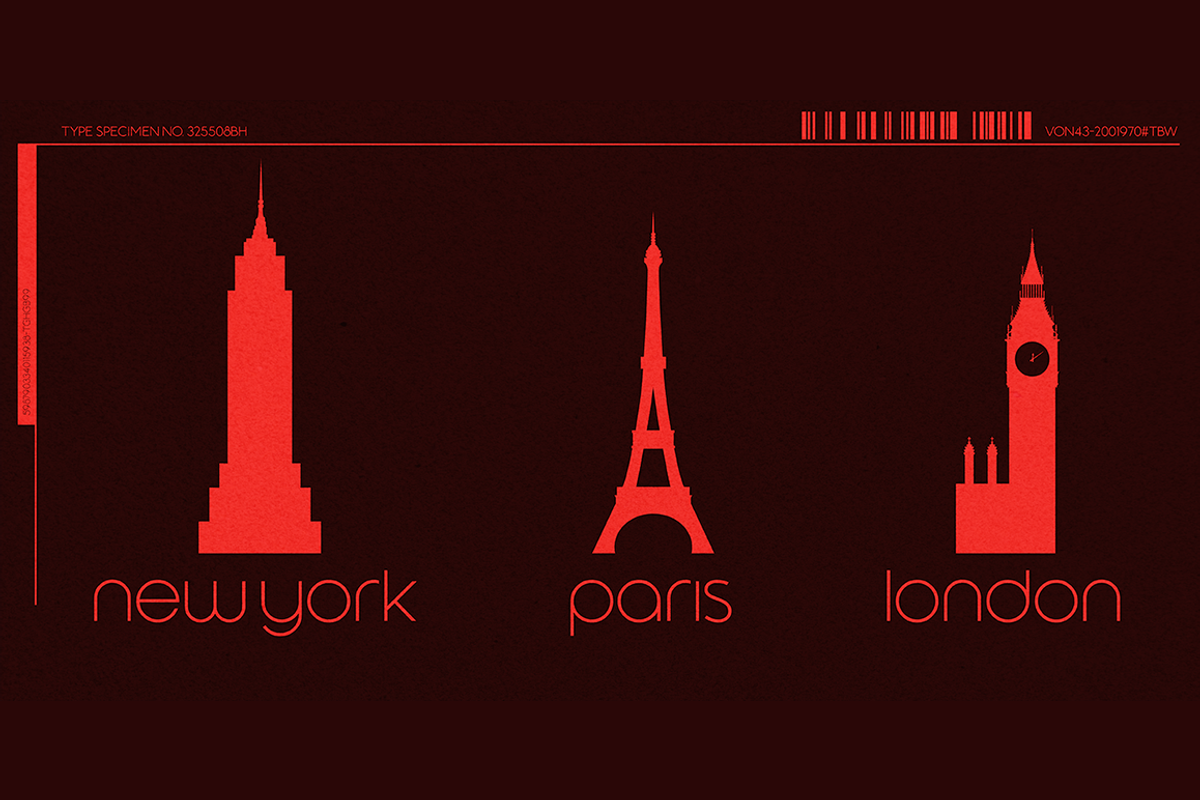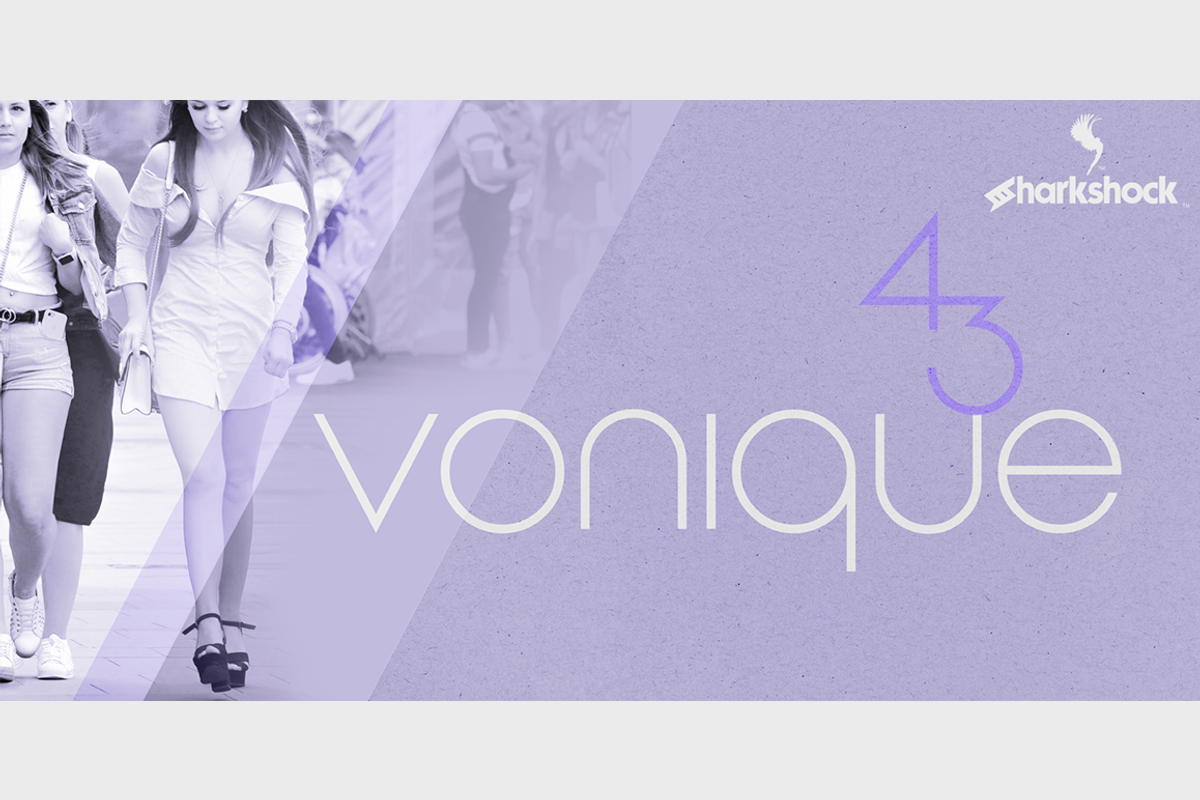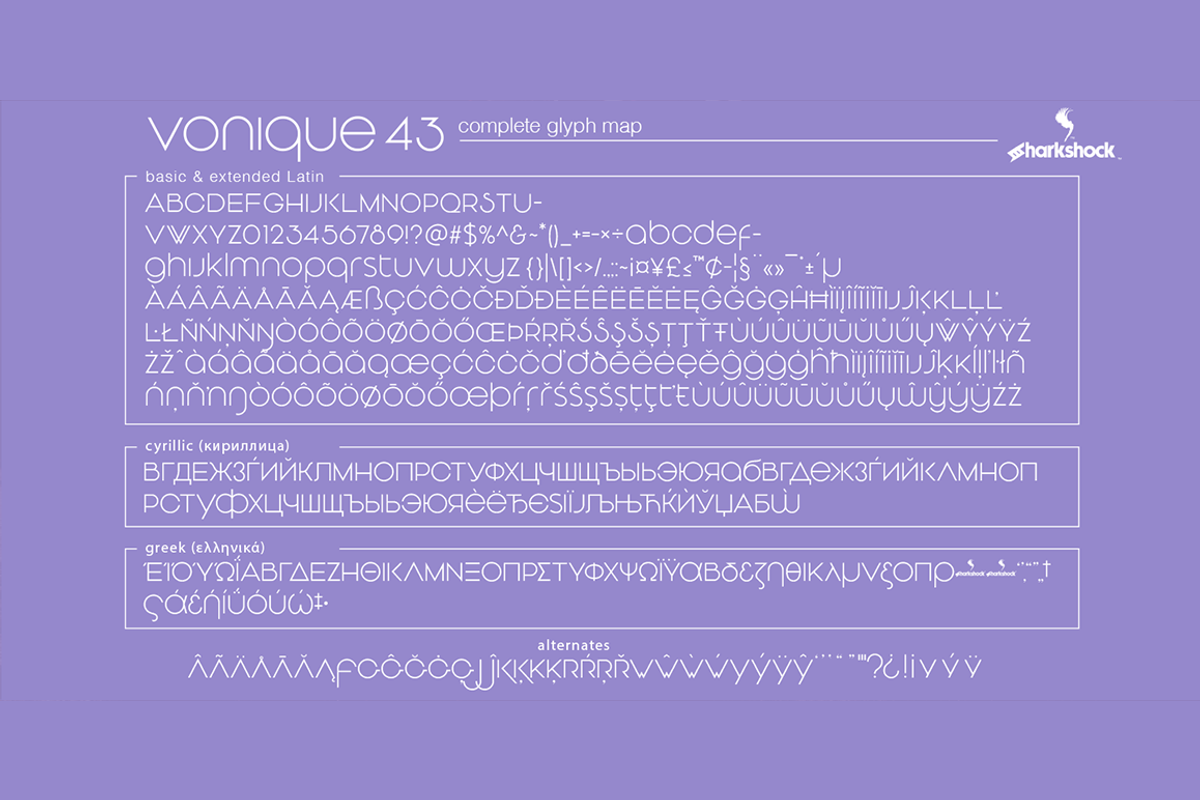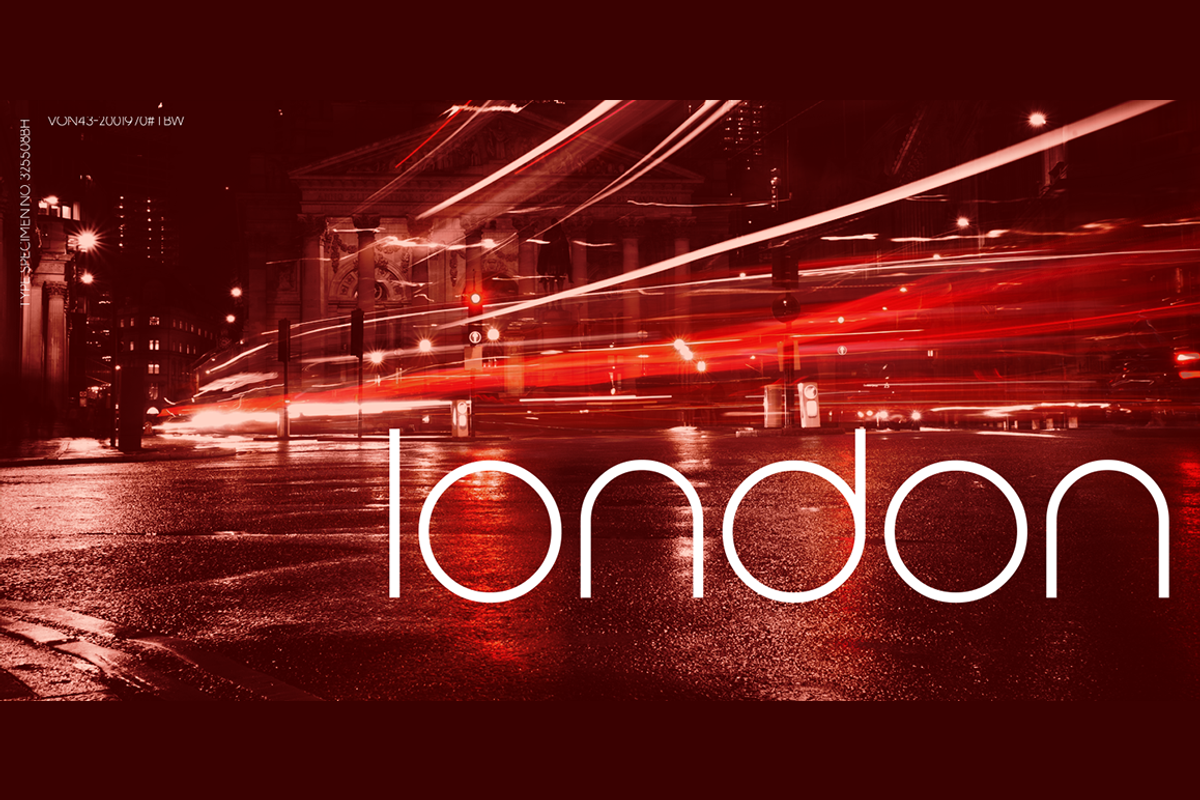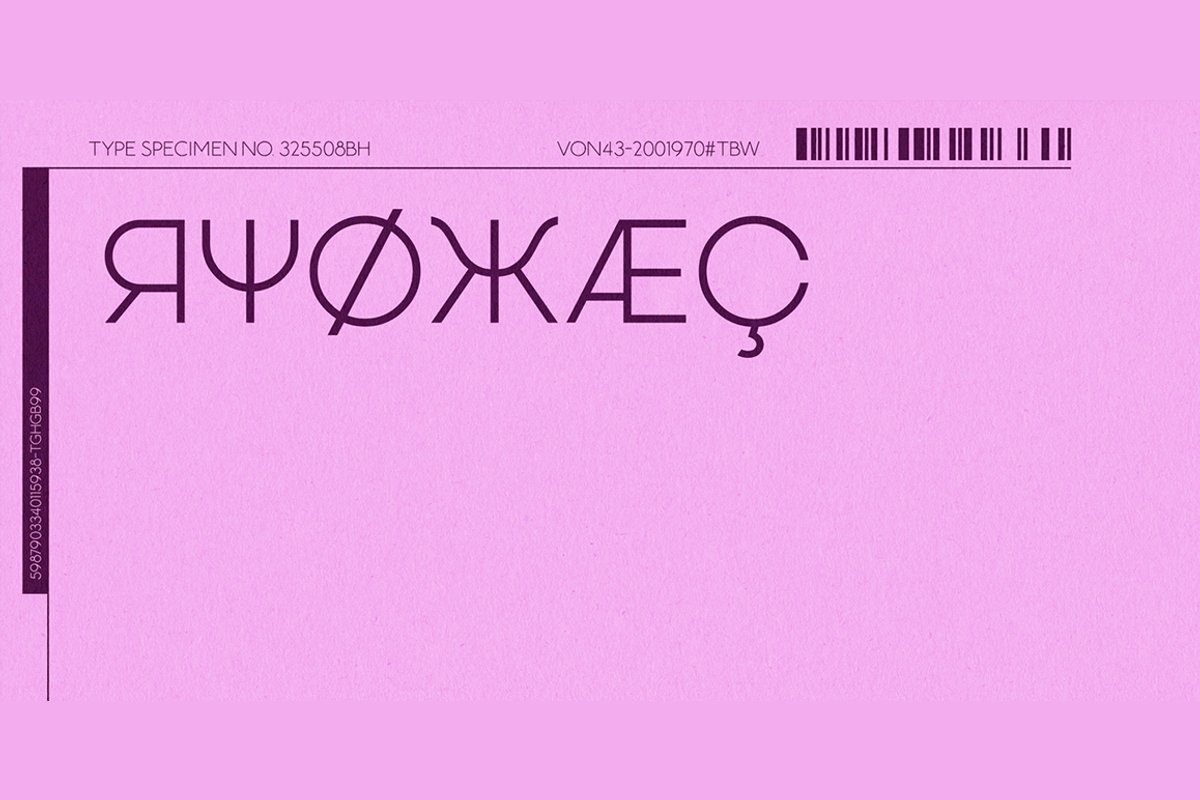
Vonique 43
Glamorous. Sleek. Undeniably elegant. The 3rd installment of the Vonique family is designed to stop passerby in their tracks. Numerous legacy characters make their way back but it’s the curvaceous lowercase members that define this font. Most are elegantly styled after circles featuring very short descenders and matching the cap height of capital letters. Vonique 43, like its predecessors, was not designed for everyday text, but eye catching logos. Use it for a luxury brand, clothing line, or a boutique. Basic Latin, Extended Latin, Cyrillic, Greek, punctuation, alternates, and kerning are all included.